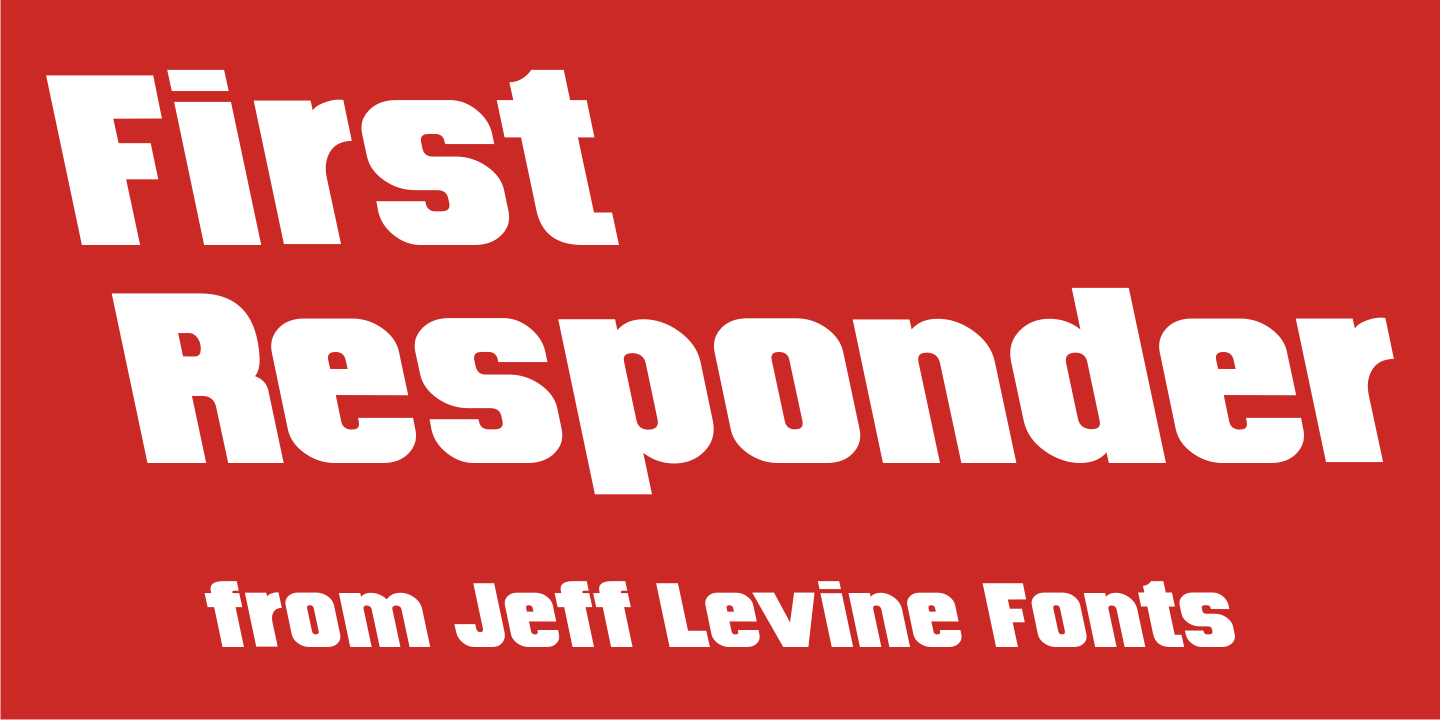
First Responder
First Responder JNL is a backslant version of Catalog JNL, and is intended to be used for graphics on police and fire vehicles to emulate 'forward” movement, which is a popular theme on such vehicles. It is also useful in conveying the same image in print applications and web design.